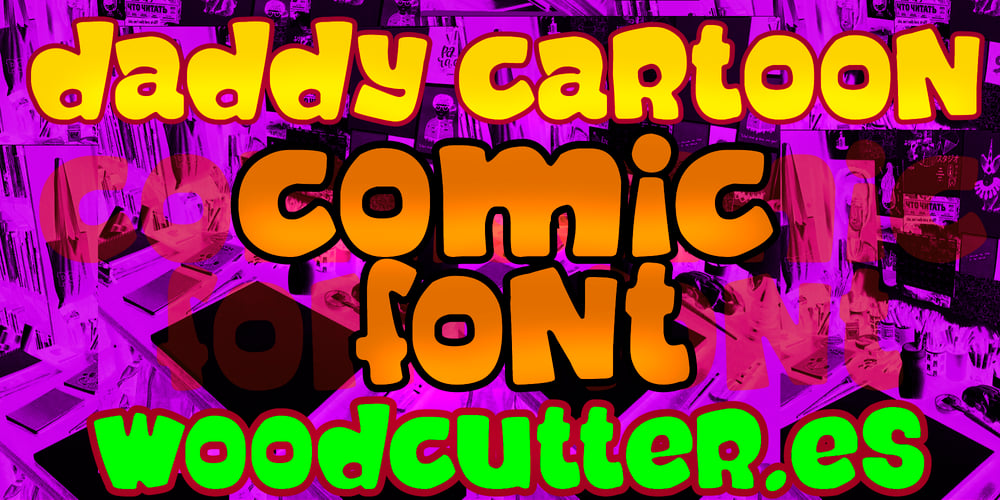
Daddy Cartoon
Daddy Cartoon font
Daddy Cartoon Font Family was designed by Jordi Manero and published by Woodcutter. Daddy Cartoon contains 1 styles and family package options. “Daddy Cartoon” is a cartoon-style typeface, fun and solid, perfect for adding a playful touch to your projects. With lowercase letters, this font is ideal for comics, children’s book titles, and any design that requires a sense of fun and creativity. “Daddy Cartoon” includes accents, ensuring you can use it in a variety of languages without losing its essence. Its robust and playful design makes it an excellent choice for grabbing attention and conveying a cheerful and dynamic message.